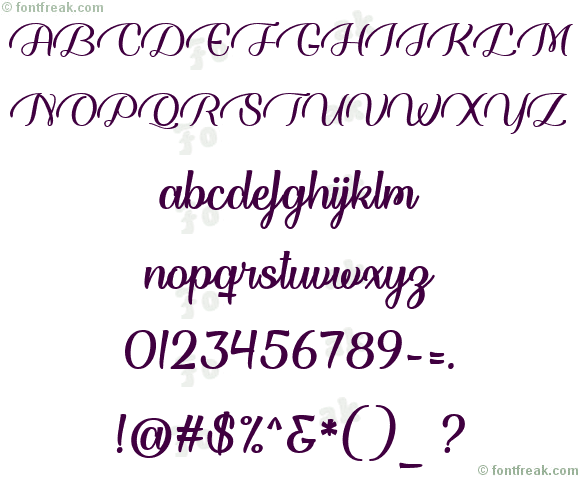
Dream Her Regular
About Dream Her Regular
Dream Her Regular is a beautifully crafted script font designed by Misti Hammers, embodying the essence of elegance and whimsy. As a display font, it features flowing, cursive letterforms that create a sense of movement and grace. The strokes exhibit a moderate contrast in weight, giving the font a light and airy feel, while the generous spacing between characters enhances legibility and allows for a more relaxed reading experience. The delicate curves and loops inherent in the font add a decorative charm, making it perfect for a variety of creative projects.
This font is ideally suited for wedding invitations, where its romantic flair can set the tone for a special day. Additionally, it shines in crafting elegant greeting cards, allowing heartfelt messages to resonate beautifully with recipients. Dream Her Regular is also a great choice for branding elements, such as restaurant menus, where it can evoke a sophisticated atmosphere. Small business owners looking to create eye-catching promotional materials will find this font useful for flyers and social media graphics, as it effortlessly captures attention while conveying a personalized touch.